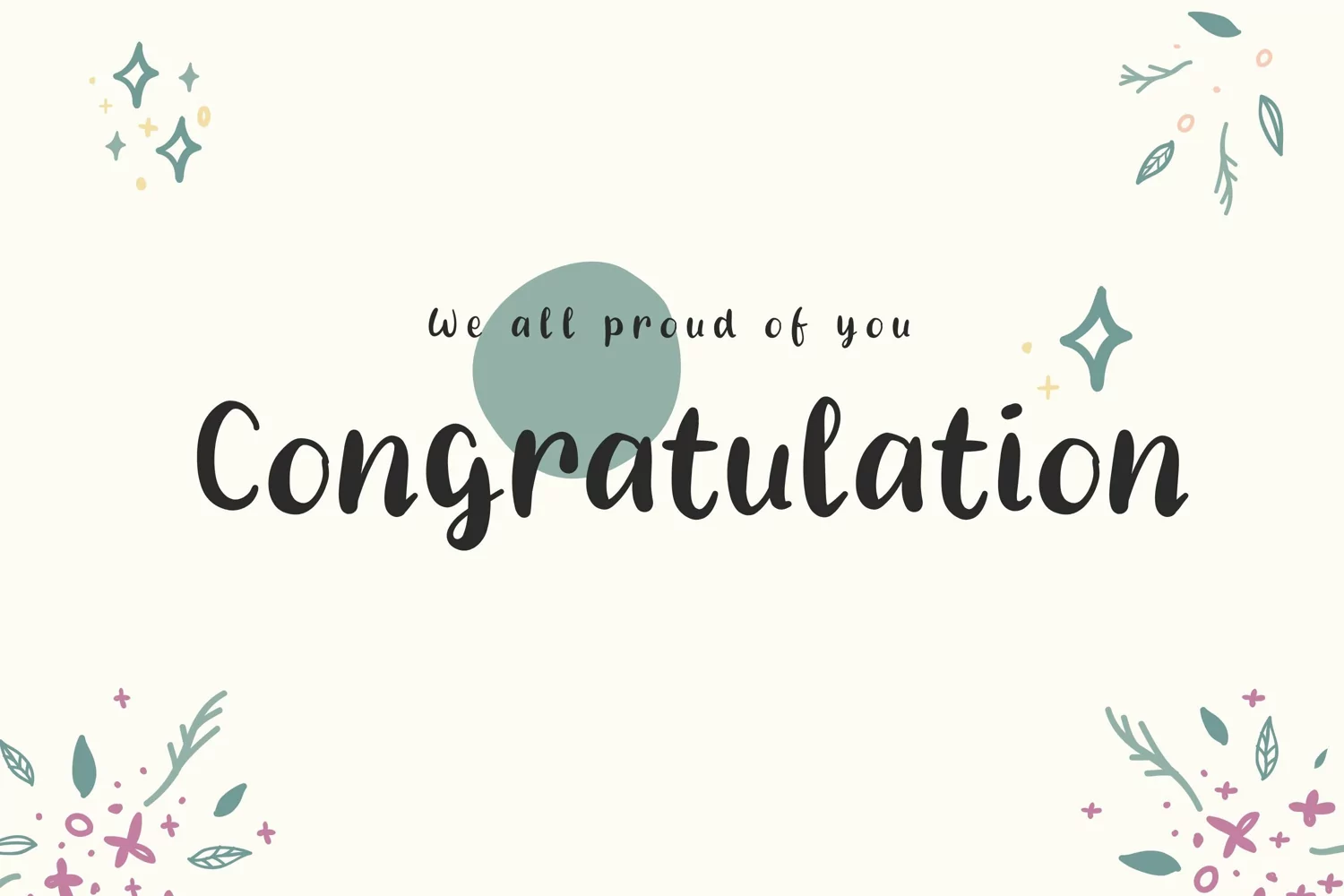
Setyaki is a Script handwritten font, carefully handcrafted to become a true favorite. Its casual charm makes it appear wonderfully down-to-earth, readable and, ultimately, incredibly versatile. Setyaki will look outstanding in any context, whether it’s being used on busy backgrounds or as a standalone headline!